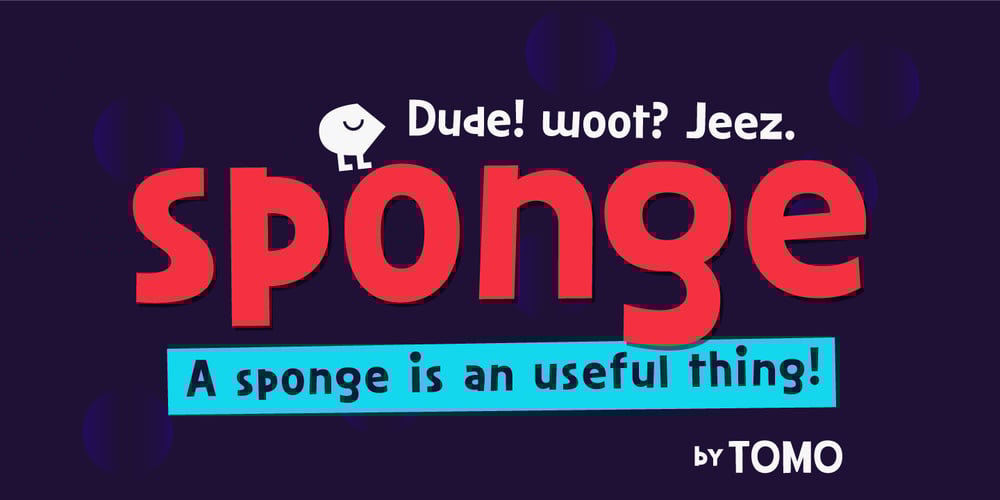
TOMO Sponge Font Family was designed by TOMO Fonts and published by TOMO Fonts. TOMO Sponge contains 1 styles and family package options. A Sponge is an useful thing, as much as this cute typeface. TOMO Sponge is great for communicating messages to the young peeps in a friendly, yet legible, way.Comes with a lot of diacritics, plus a handful of cute stylistic alternates.